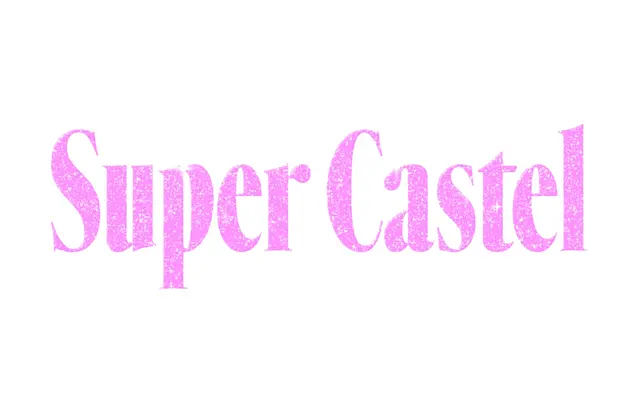
Super Castel
A condensed serif family from Production Type offered in Extra Condensed and Condensed widths, spanning six weights with italics throughout.
Available exclusively in condensed cuts, Super Castel runs from ExtraLight to Black across both Extra Condensed and Condensed widths, each weight paired with a matching italic. The family's proportions and apparent contrast point to a transitional serif sensibility, making it suited to editorial headlines, book covers and display contexts where vertical economy matters. Twenty-four styles in total give it reasonable range within its narrow-width brief.
The name 'Castel' references a classical serif lineage in the transitional style, and the condensed-only release with high-contrast letterforms suggests a refined, editorial serif suited to vertical measure and display settings.